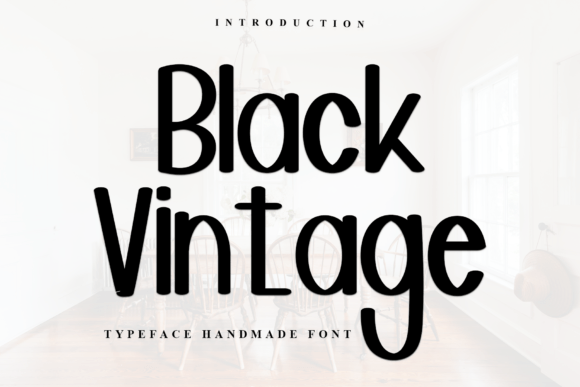
The Timeless Elegance of Black Vintage Font
Have you ever been in the middle of a design project, pouring your heart and soul into it, only to get stuck on one thing: the perfect font? I recall a particularly frustrating experience when I was working on a wedding invitation design. My client wanted something elegant, yet modern, and I just couldn’t seem to find the right fit. That’s when I stumbled upon the Black Vintage font, and it completely transformed my design. In this article, I’ll share my journey with this beautiful font, its features, and how you can make the most of it in your own creative projects.
First Impressions: A Delicate, Elegant, and Timeless Font
Black Vintage is a delicate, elegant, and timeless font that has become a staple in my design toolkit. Its beautiful and well-balanced characters make it an incredibly versatile choice, suitable for a wide range of designs. Whether you’re working on a sophisticated business card or a whimsical craft project, this font has the power to bring your ideas to life.
What I Love About Black Vintage Font
- ✨ Elegant and Refined: Black Vintage boasts a classic, sophisticated look that’s perfect for designs that require a touch of luxury.
- ✅ PUA Coded for Easy Access: This font is PUA coded, which means you can easily access all the amazing glyphs and ligatures, making your design process a breeze.
- 🌈 Versatile: From wedding invitations to branding materials, Black Vintage font matches a wide pool of designs, ensuring you can use it across various projects.
While Black Vintage font is a stunning addition to any design project, there are a few minor considerations to keep in mind:
- ⚠️ Limited Use in Body Text: Due to its elegant and refined nature, Black Vintage font might not be the best choice for lengthy body text. It’s ideal for headings, titles, or short phrases.
- 🤔 Requires Some Exploration: With PUA coding, you get access to a wide range of glyphs and ligatures. However, it might take some time to explore and get familiar with all the features.
The Designer Inspiration Behind Black Vintage Font
While the exact origins of Black Vintage font might not be well-documented, it’s clear that the designer aimed to create a timeless and elegant typeface. Inspired by classic designs from the past, Black Vintage brings a touch of nostalgia and sophistication to modern designs. The attention to detail in its creation, from the balance of characters to the inclusion of PUA coding, showcases a deep understanding of designers’ needs.
| Is Black Vintage font suitable for body text? | No, it’s best used for headings, titles, or short phrases due to its elegant and refined nature. |
| Is Black Vintage font easy to read? | Yes, its well-balanced characters ensure good readability, making it suitable for a variety of design projects. |
Black Vintage font is a beautiful addition to any designer’s toolkit, offering elegance, versatility, and a touch of timelessness. Whether you’re a professional designer or a creative hobbyist, this font can elevate your projects and bring your ideas to life. Explore its features, experiment with different designs, and discover the impact it can have on your creative endeavors.